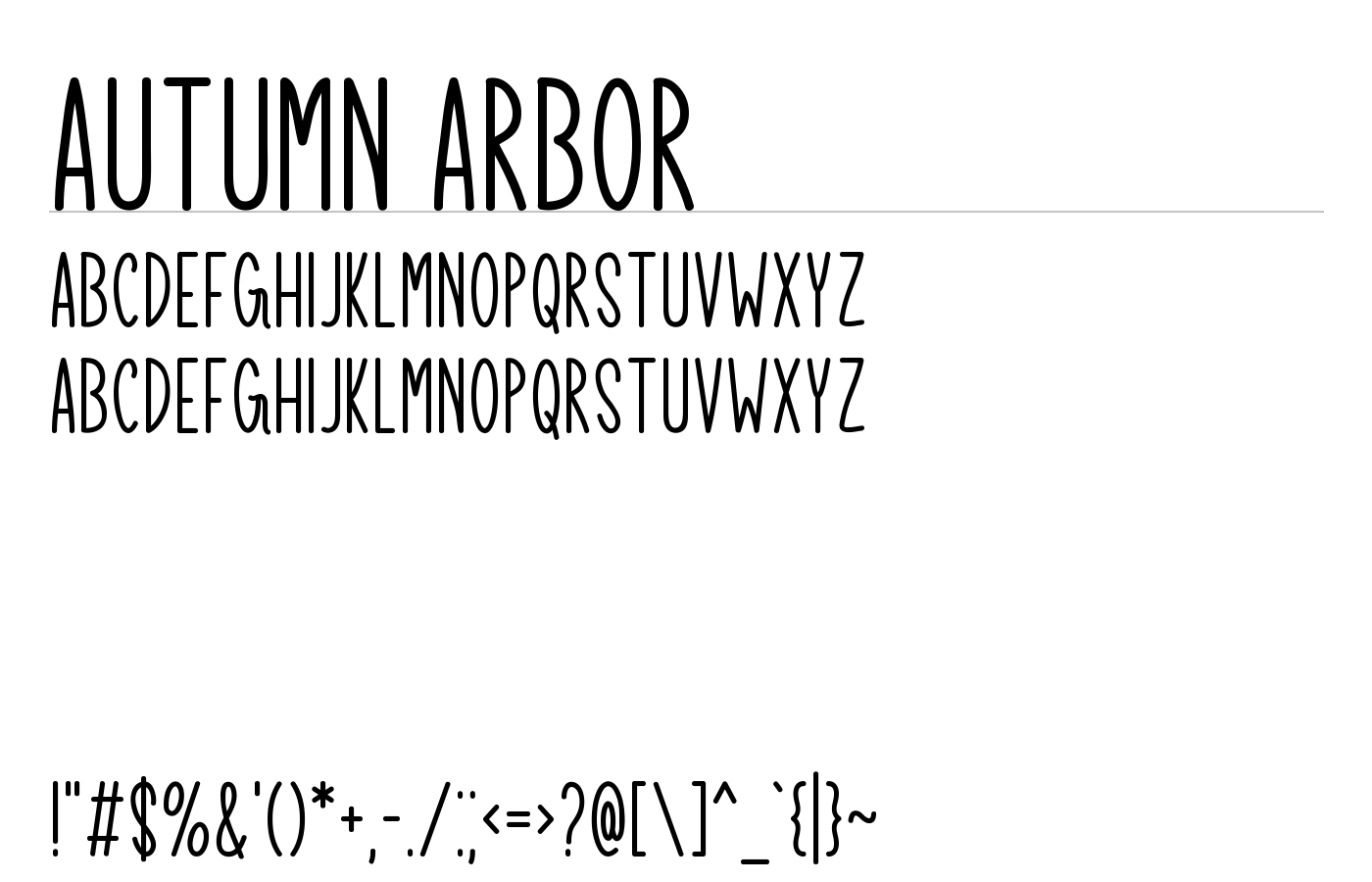
Autumn Arbor is a tall, narrow sans serif font with a playful, hand-drawn feel, featuring thin strokes and uniform weight for a clean look. Its condensed letterforms and slight irregularities make it ideal for whimsical or informal designs, perfect for headlines, logos, and creative projects that want a friendly, approachable vibe. This font works well where a casual yet distinctive style is needed to capture attention without overwhelming the design.
Autumn Arbor Font